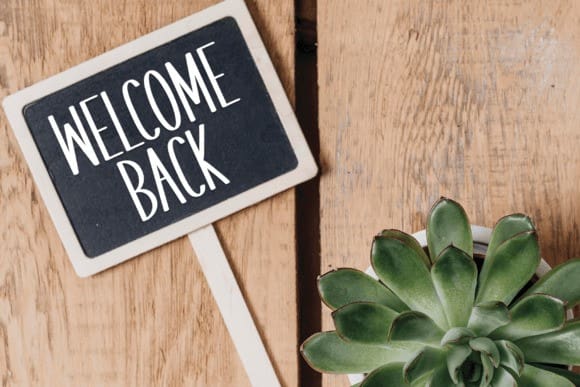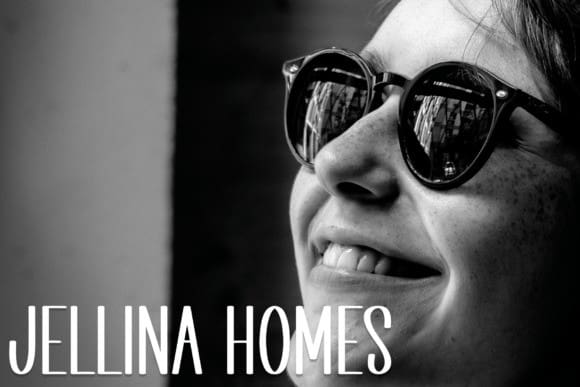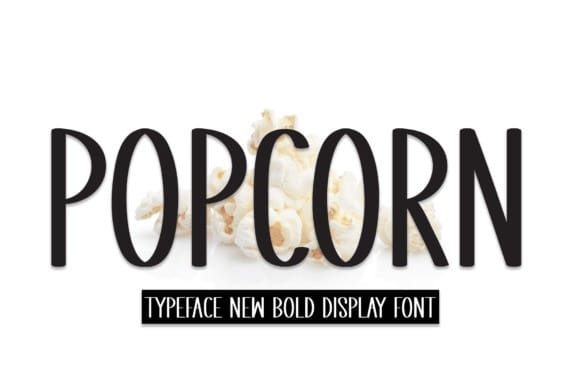
Popcorn Display Font
Popcorn Display Font, perfect for wall displays, wedding invitations, social media post logos, advertisements, product packaging, product designs, labels, photography, watermarks, invitations, stationery, and any project that requires a taste for handwriting.